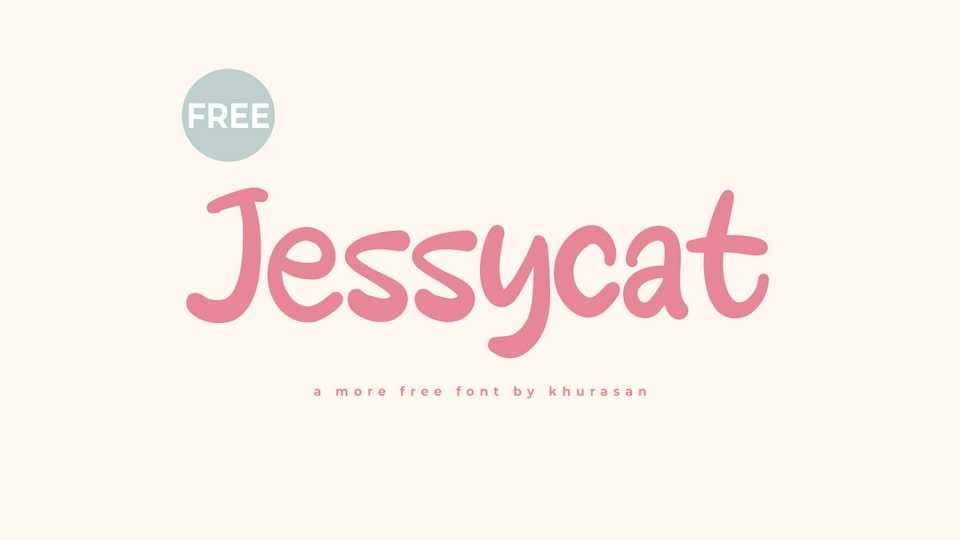
Download Jessycat font, a cute and playful hand-drawn typeface that infuses your designs with a delightful sense of whimsy. The font radiates a playful charm, adding an endearing touch to your typographic compositions.